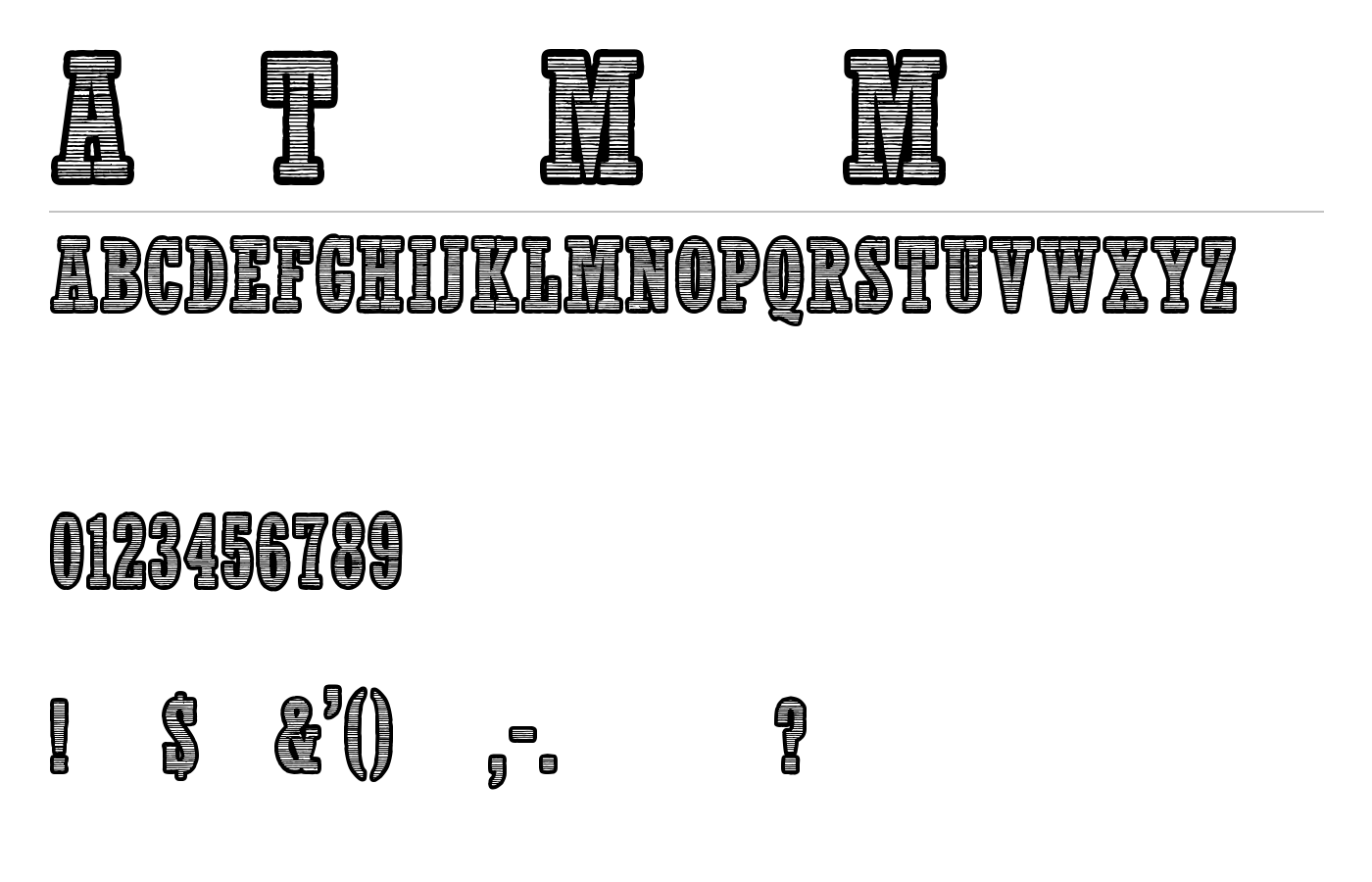
All The Mad Men is a bold, vintage slab serif font with a distinctive striped texture that gives it a retro, Western-inspired feel. Its sturdy, blocky letters with thick, bracketed serifs and high contrast strokes make it ideal for eye-catching headlines, posters, and branding that seeks a nostalgic or rugged character. This font works best where a strong, playful, and historic mood is desired, adding personality and visual impact to any design.
All The Mad Men Font